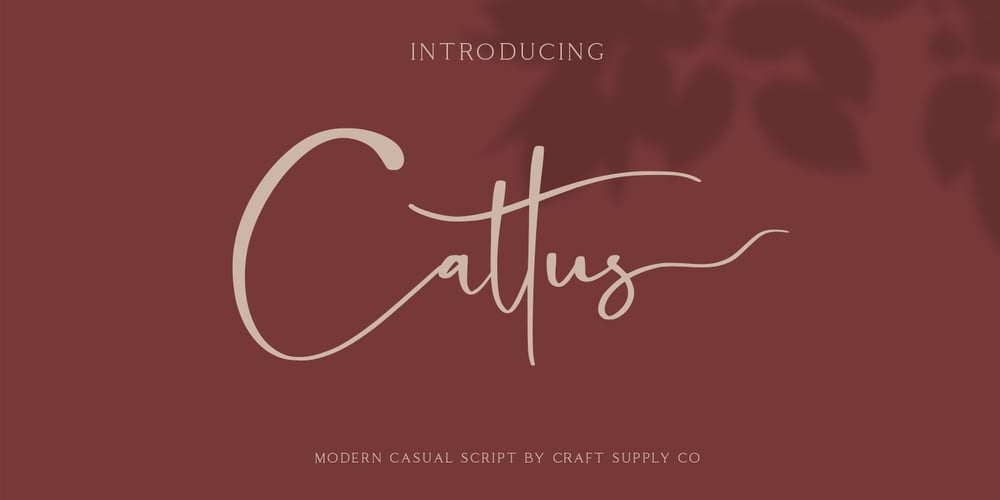
Cattus Font Family was designed by Trio Nazzar Saputra, Wahyu Hadi Yuana and published by Craft Supply Co. Cattus contains 1 styles and family package options. Cattus is a handwritten script font based on the expression of real handwriting. Cattus will work perfectly for fashion, e-commerce brands, trend blogs, wedding boutiques or any business that wants to appear upscale and chic. Cattus is also suitable for logos, greeting cards, quotes, posters, branding, name cards, stationary, design titles, blog headers, art quotes, typography, art, modern envelope lettering or book design, happening style like hand-drawn design or watercolor design themes, craft design, any DIY project, book titles, or any purpose to make your art/design project look pretty and trendy.